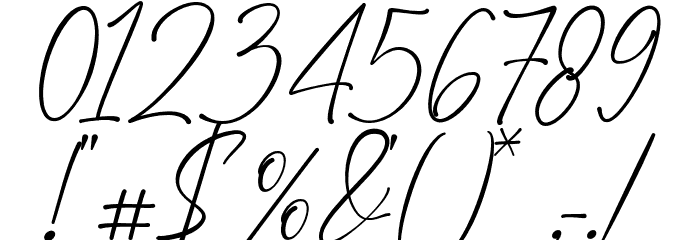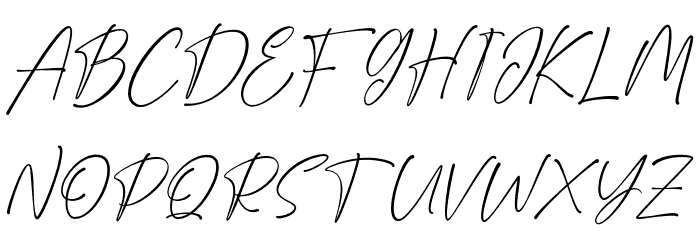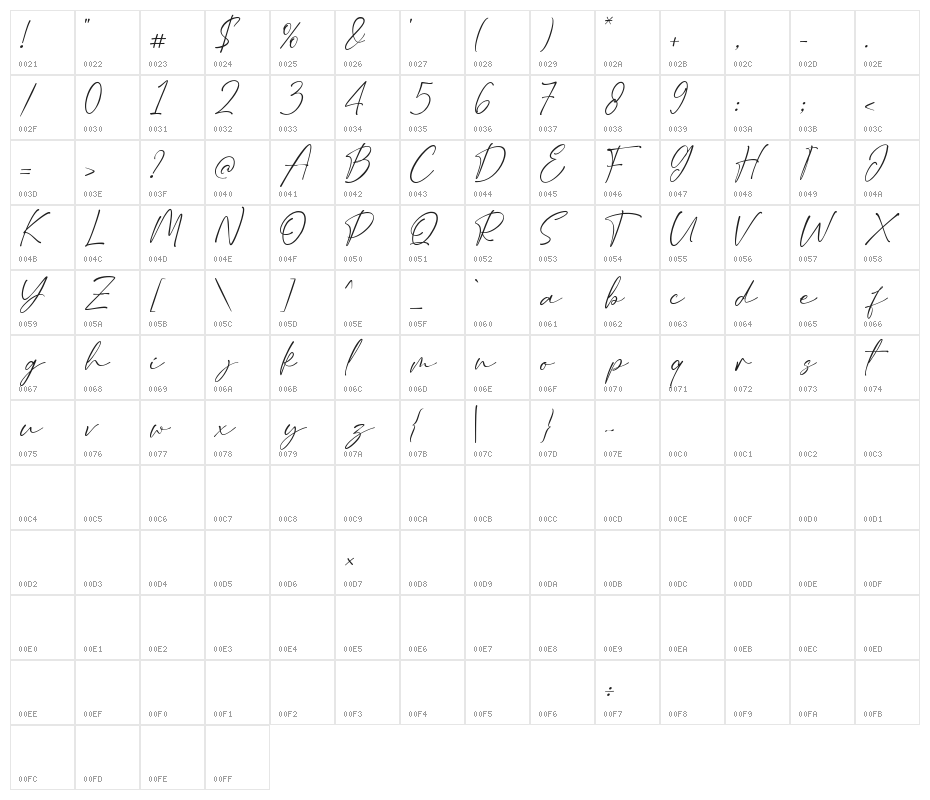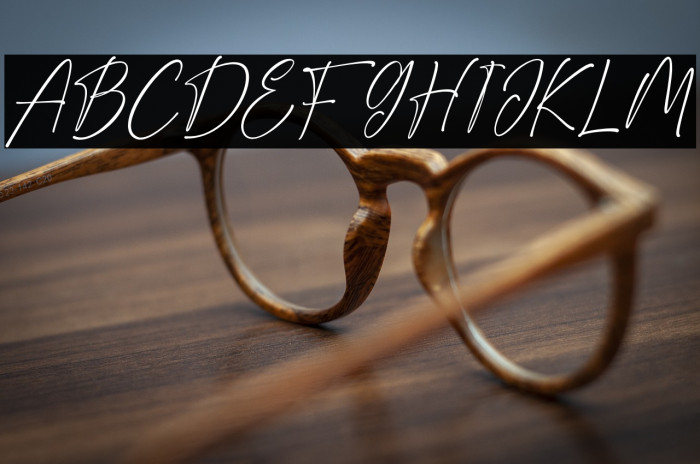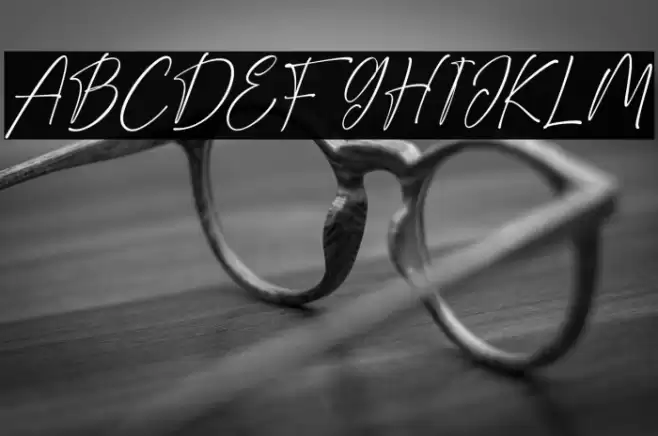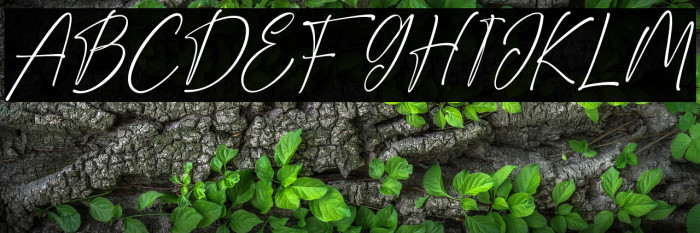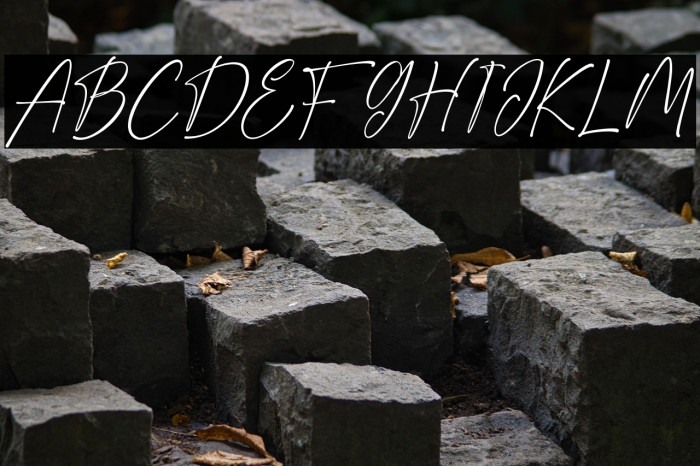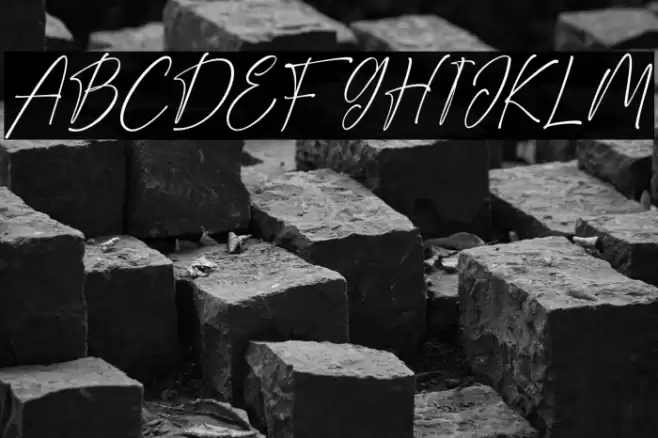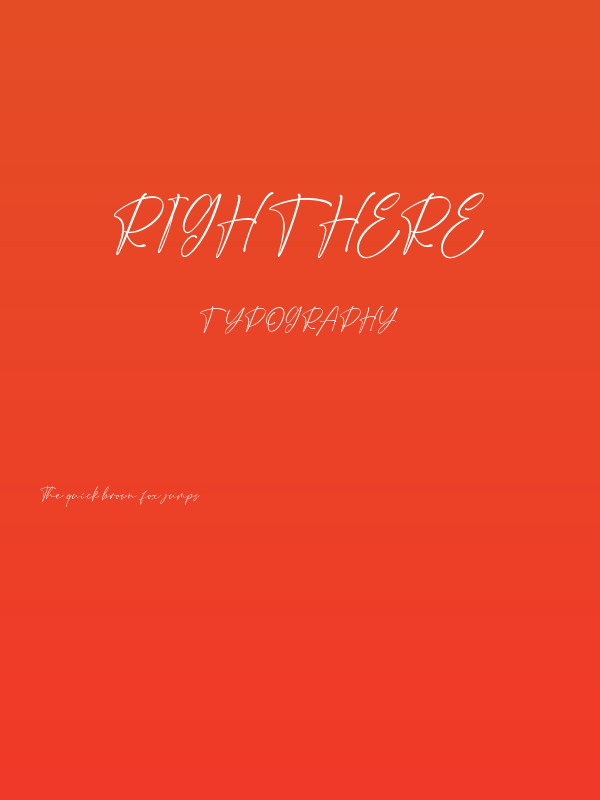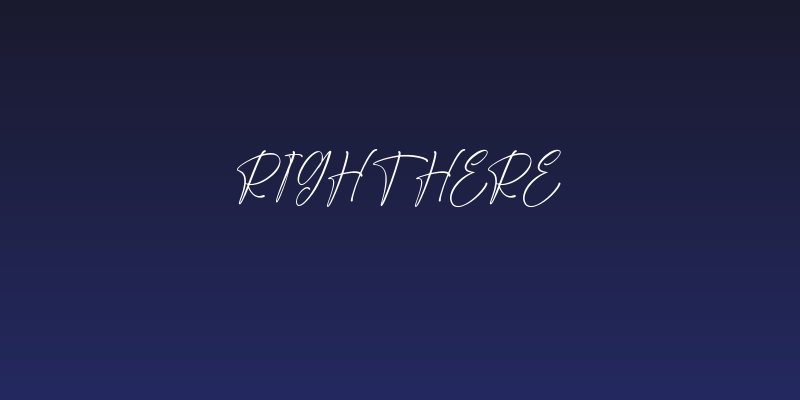
RightHere Font
RightHere Description
This font features a fluid and elegant script style, characterized by its smooth, flowing lines and cursive letterforms. The uppercase letters are tall and slender, with a slight slant that adds a dynamic feel. The lowercase letters maintain a consistent flow, connecting seamlessly in a handwriting-like manner. Numbers and special characters are designed to complement the overall script aesthetic, maintaining the same graceful curves. The font's thin strokes and delicate appearance make it ideal for projects that require a touch of sophistication and elegance.
| Use Case | Logos, Invitations, Personal Stationery |
| Proposed Projects | Ideal for wedding invitations, greeting cards, elegant branding, and personal stationery. |